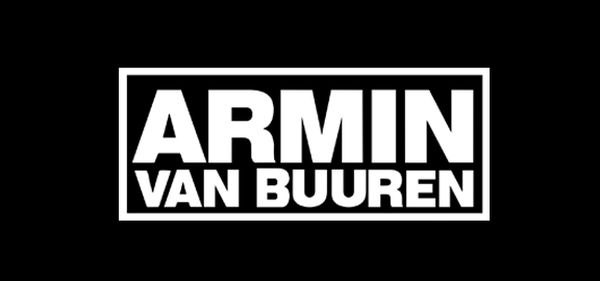
Armin van Buuren Font
BandArmin Jozef Jacobus Daniël van Buuren is a Dutch DJ and record producer. His popularity as a DJ grew rapidly in England and the US between 1999 and 2000. In 2001, he began hosting a radio show called A State of Trance.
The Armin van Buuren logo features Helvetica Black font as first seen on the cover of 2008 album Imagine, and then on Mirage and Intense, but in different hues.